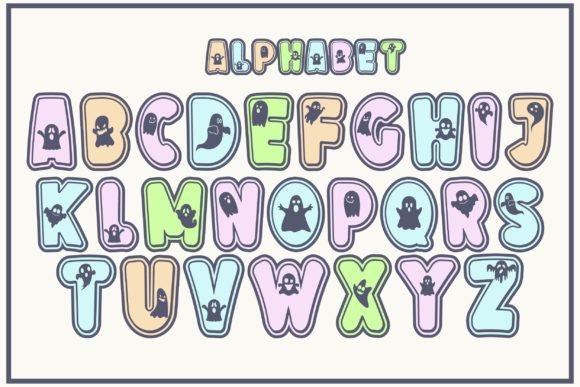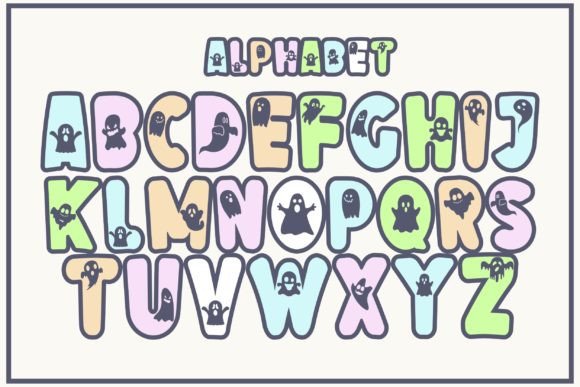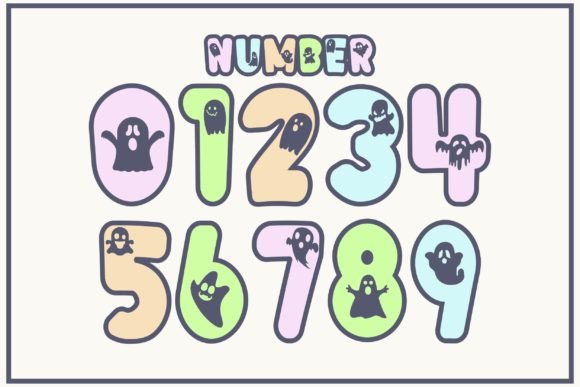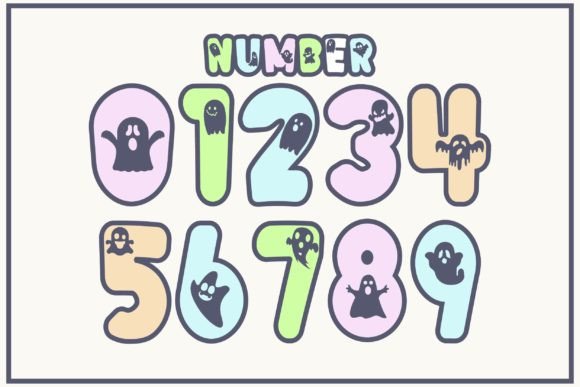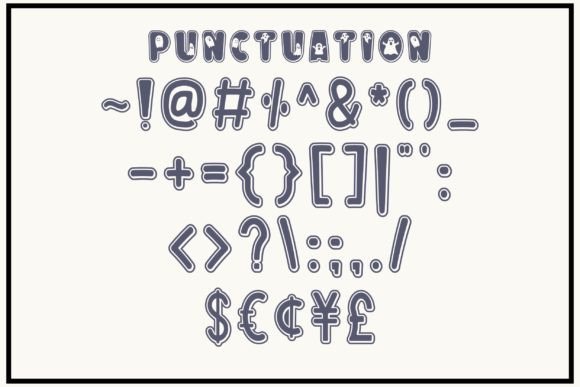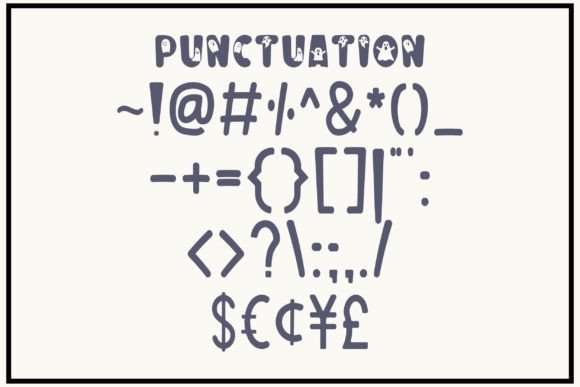
Discover the Charm of Ghost Town Font: Add a Touch of Whimsy to Your Designs
Are you tired of using the same old fonts in your designs? Look no further than Ghost Town Font, a fun and adorable decorative font that’s sure to bring a smile to your face. With its playful and cheerful vibe, Ghost Town Font is perfect for adding a touch of whimsy to your designs, whether you’re working on a cover, poster, crafty DIY project, or anything that needs to pop!
What is Ghost Town Font?
Ghost Town Font is a decorative font that’s designed to add a touch of fun and playfulness to your designs. Its unique and quirky style is reminiscent of a ghost town, with a charm that’s hard to resist. The font is perfect for designers and crafters who want to add a personal touch to their work, and its versatility makes it suitable for a wide range of projects.
Features of Ghost Town Font
So, what makes Ghost Town Font so special? Here are just a few of its key features:
- Fun and playful design: Ghost Town Font has a unique and quirky style that’s sure to add a touch of whimsy to your designs.
- High-quality characters: The font features high-quality characters that are clear and easy to read, making it perfect for use in a variety of projects.
- Versatile: Ghost Town Font is suitable for use in a wide range of projects, from covers and posters to crafty DIY projects and more.
Uses for Ghost Town Font
So, what can you use Ghost Town Font for? The possibilities are endless! Here are just a few ideas to get you started:
- Covers and posters: Add a touch of whimsy to your covers and posters with Ghost Town Font.
- Crafty DIY projects: Use Ghost Town Font to add a personal touch to your crafty DIY projects, such as scrapbooking, card making, and more.
- Social media graphics: Add a touch of fun and playfulness to your social media graphics with Ghost Town Font.
- Signs and banners: Use Ghost Town Font to create eye-catching signs and banners that are sure to grab attention.
Tips for Using Ghost Town Font
Here are a few tips for using Ghost Town Font in your designs:
- Experiment with different colors: Ghost Town Font looks great in a variety of colors, so don’t be afraid to experiment and find the perfect hue for your design.
- Pair with other fonts: Try pairing Ghost Town Font with other fonts to create a unique and interesting look.
- Use it sparingly: While Ghost Town Font is fun and playful, it can be overwhelming if used too much. Use it sparingly to add a touch of whimsy to your design.
In conclusion, Ghost Town Font is a fun and adorable decorative font that’s perfect for adding a touch of whimsy to your designs. With its playful and cheerful vibe, it’s suitable for use in a wide range of projects, from covers and posters to crafty DIY projects and more. So why not give it a try and see how it can add a touch of charm to your designs?
Whether you’re a designer or crafter, Ghost Town Font is a great addition to your font collection. Its unique and quirky style is sure to bring a smile to your face, and its versatility makes it easy to use in a variety of projects. So go ahead, get creative, and have fun with Ghost Town Font!